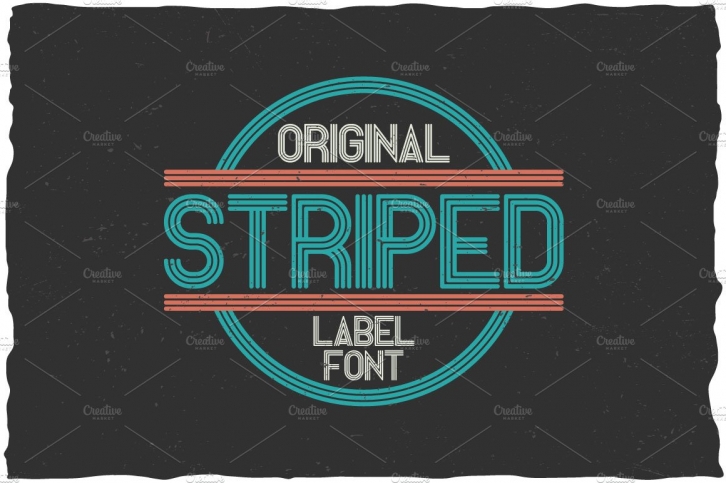
Here is a classic look label typeface named "Striped". It's made in vintage label style. Font is perfect for any label or poster design.
- 2 styles of font, named Striped Regular and Striped Aged.